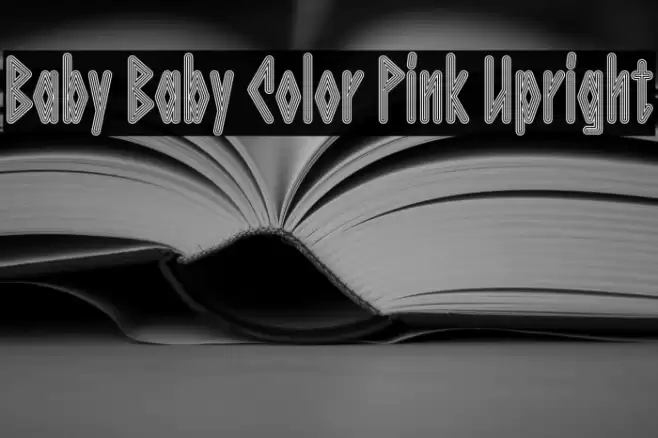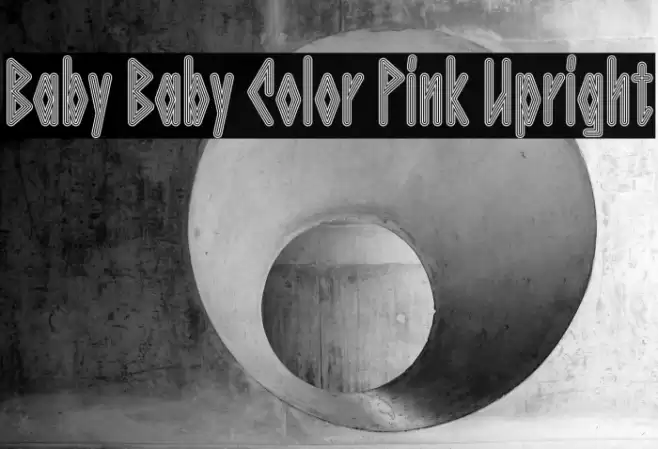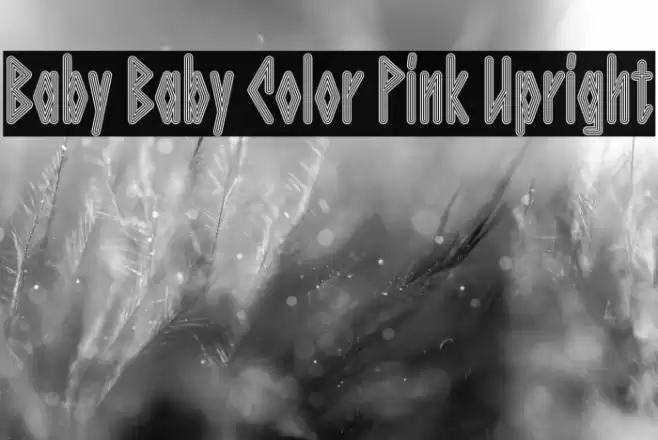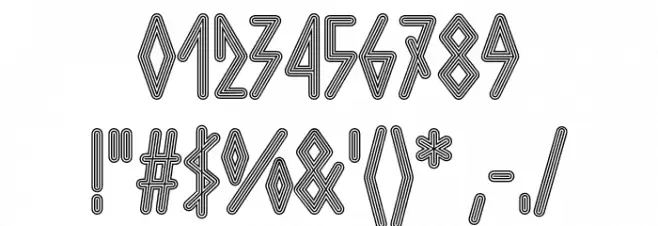
Baby Baby Color Pink Upright Font
Baby Baby Color Pink Upright Description
This font features a unique, decorative style characterized by its outlined, multi-layered appearance. Each character is composed of several parallel lines, creating a sense of depth and dimension. The uppercase and lowercase letters maintain a consistent geometric form, with sharp angles and clean lines. The numerals and special characters follow the same design principles, ensuring uniformity across the entire character set. This font's distinct style makes it stand out, offering a modern twist on traditional typography.
A decorative, multi-layered outlined font with a geometric and modern style from Uncategorized fonts.
- Proposed Projects: Ideal for eye-catching posters, creative branding, unique logos, and modern art projects.